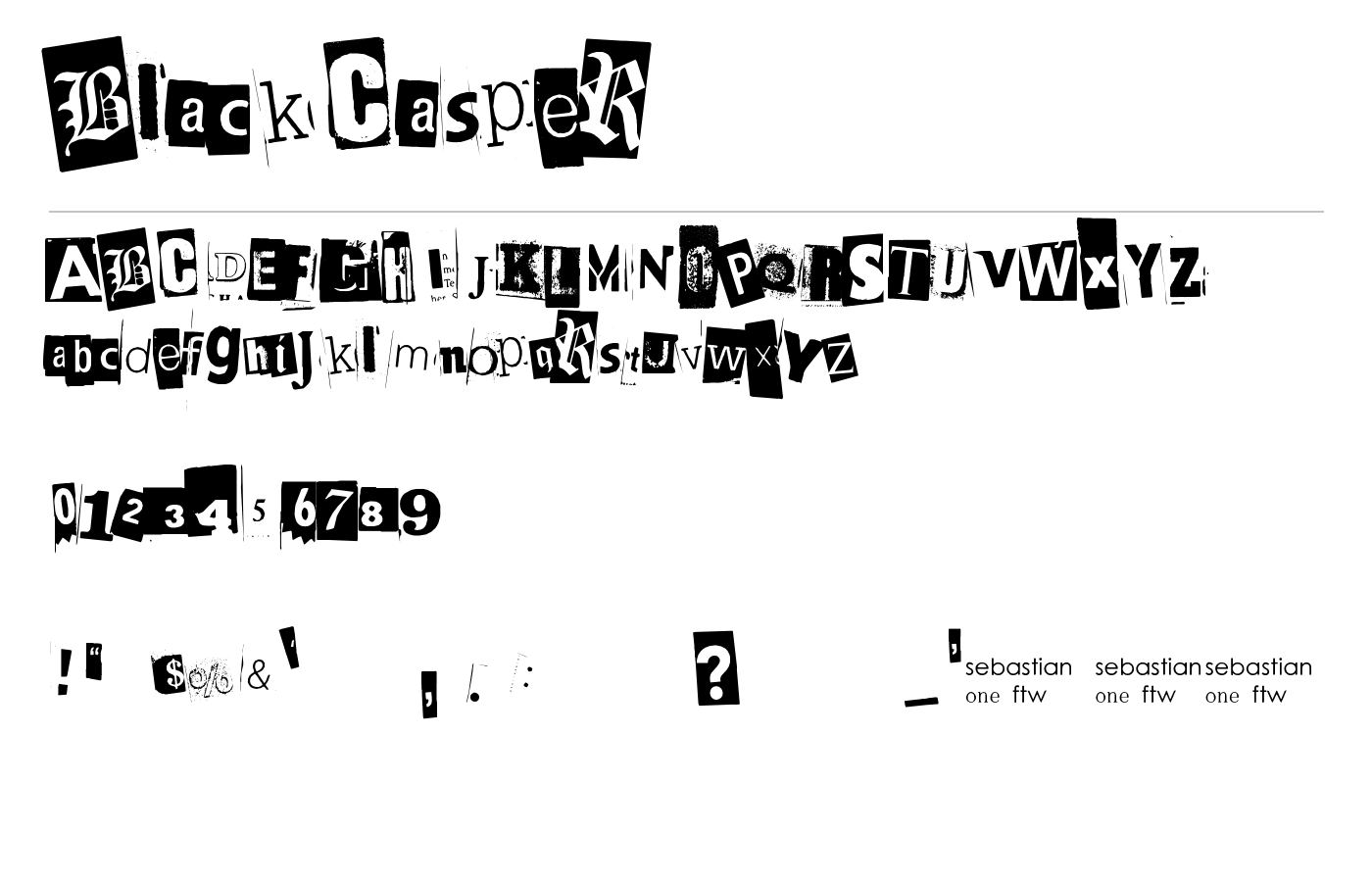
BlackCasper is a bold, eclectic display font that mimics the look of ransom note cutouts with varied letter shapes and distressed textures. Its playful, chaotic style combines a mix of serif and sans serif letterforms, making it perfect for eye-catching headlines, posters, or designs seeking an edgy, rebellious vibe. This font works best where a gritty, unconventional, and expressive feel is desired.
BlackCasper Font
About BlackCasper Font